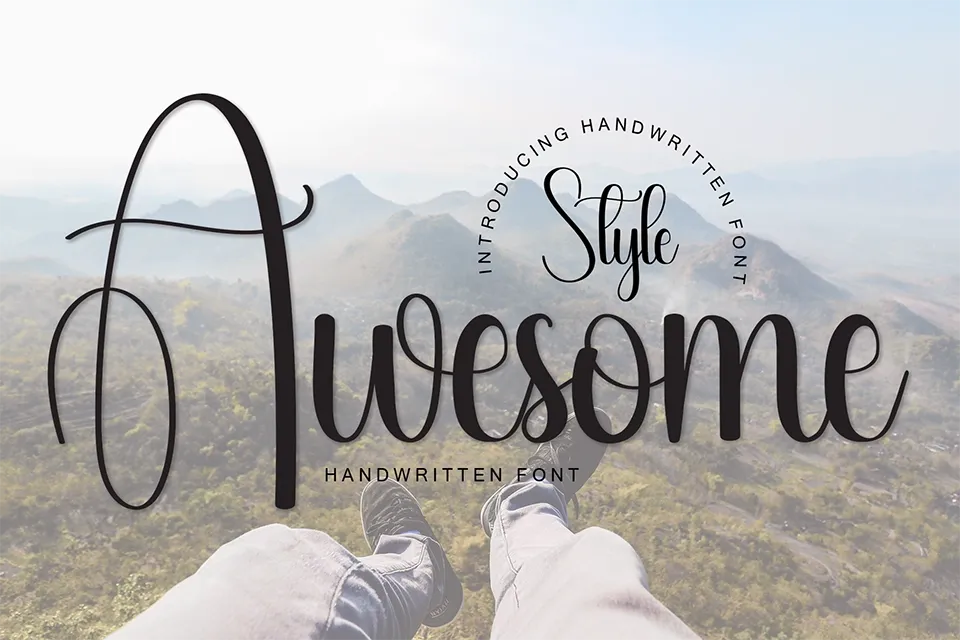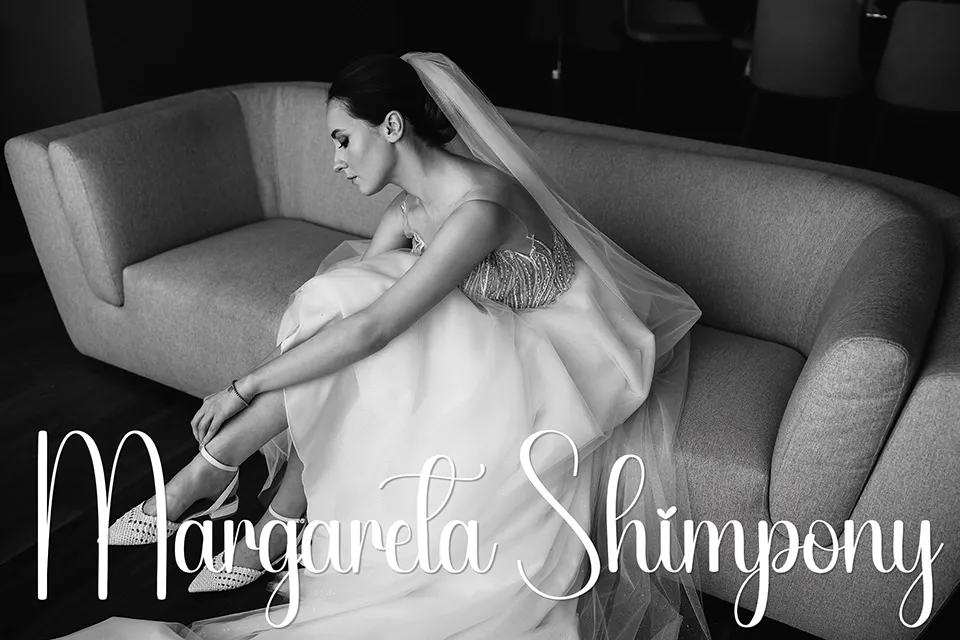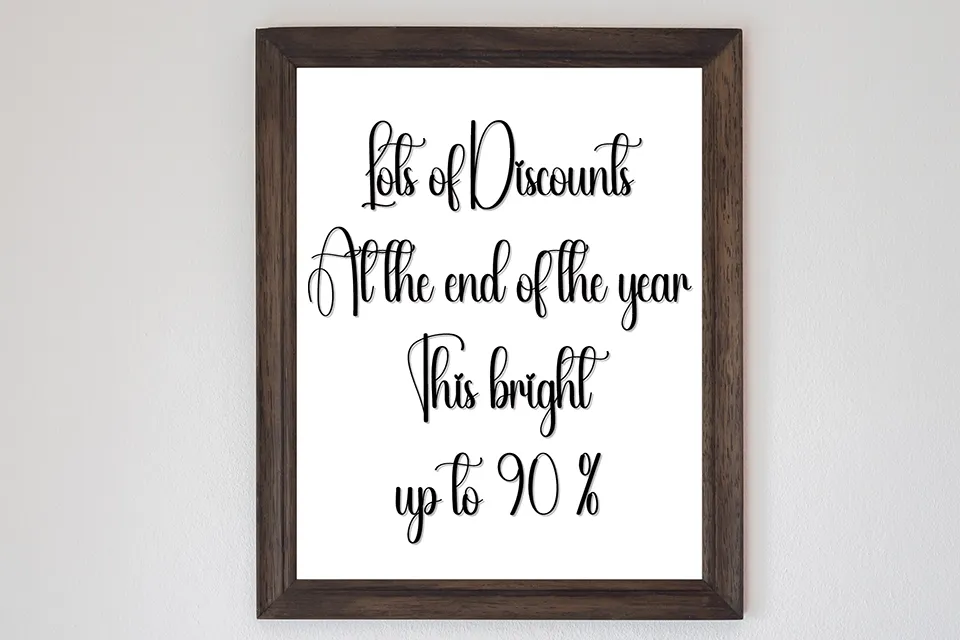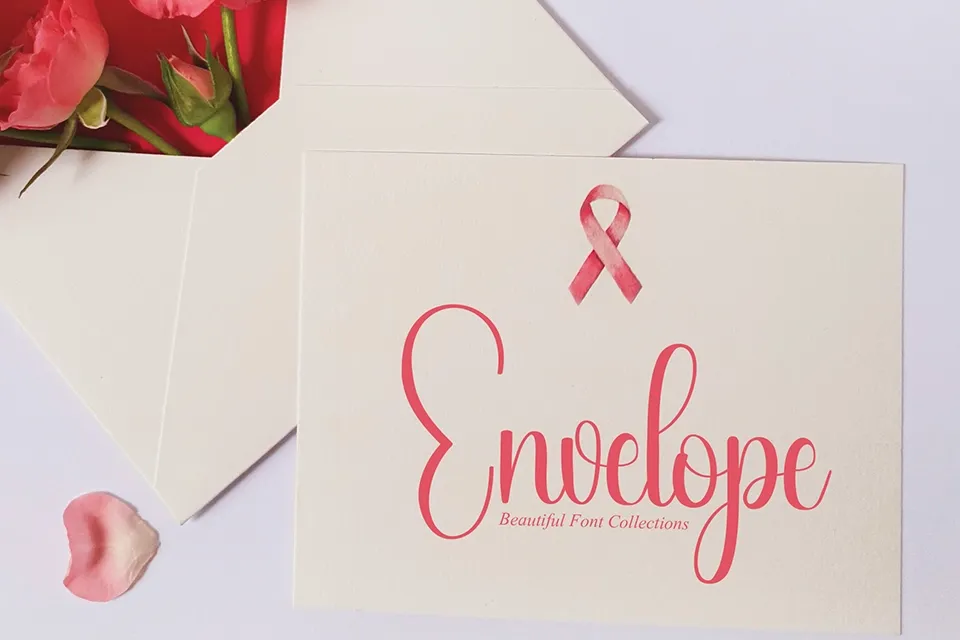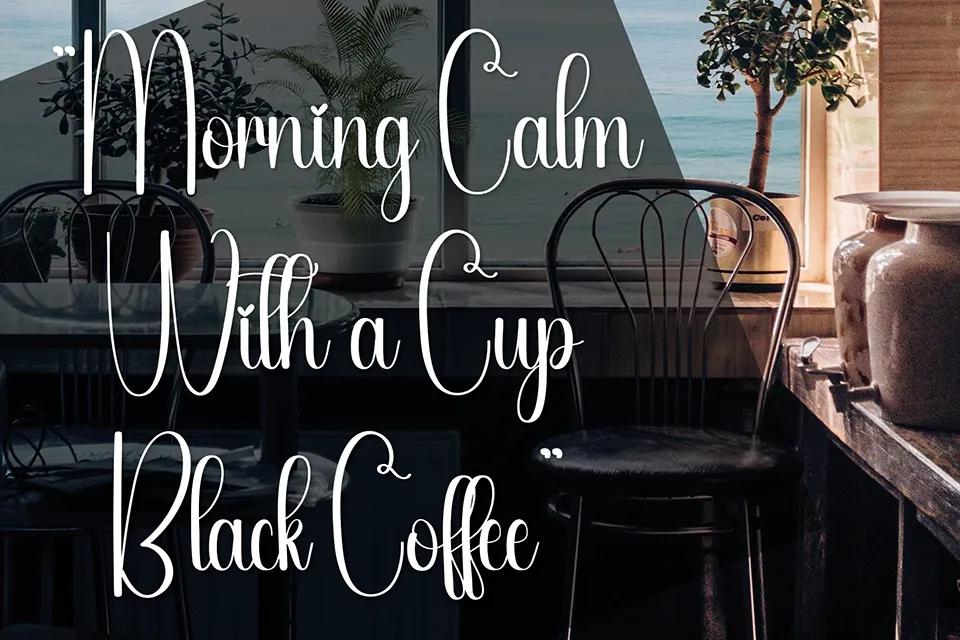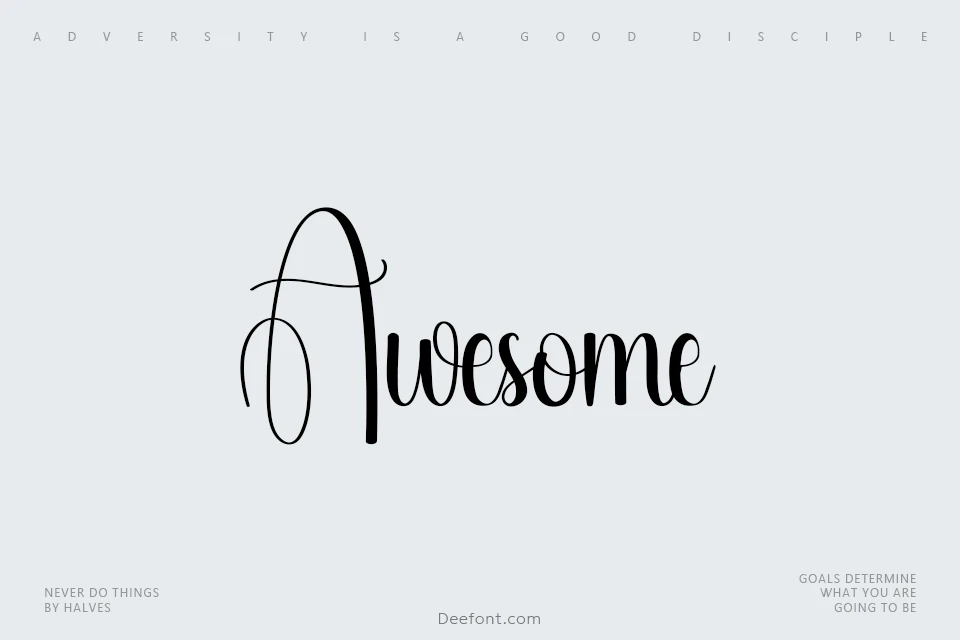
Awesome Font
Awesome Script Font is an eye-catching and lively script typeface, ideal for adding life and vibrancy to any design style. Awesome Script Font provides versatile layout styles suitable for logos, websites, product packaging, and graphic design projects alike. The font includes a complete set of beautiful upper and lowercase letters, numbers, a wide variety of punctuation marks, and ligatures, with all lowercase letters including start and end variations for a realistic handwritten style. This modern and elegant typeface is perfect for creative ideas, both formal and informal applications, making it suitable for invitation cards, letterheads, website logos, social media graphics, banners, advertisements, brochures, packaging products, and any project requiring tasteful handwriting.